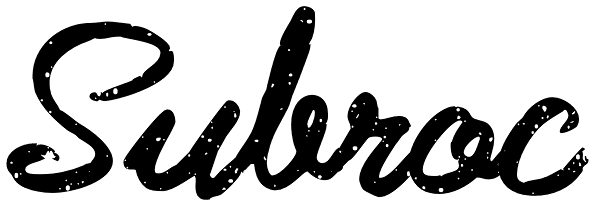
Subroc
Subroc is a debonair joined-marker script typeface. Custom letter pairs are automatically substituted for a more natural look. Subroc's inconspicuous, granular texture imparts a carefree ambiance to your words.
Subroc Font